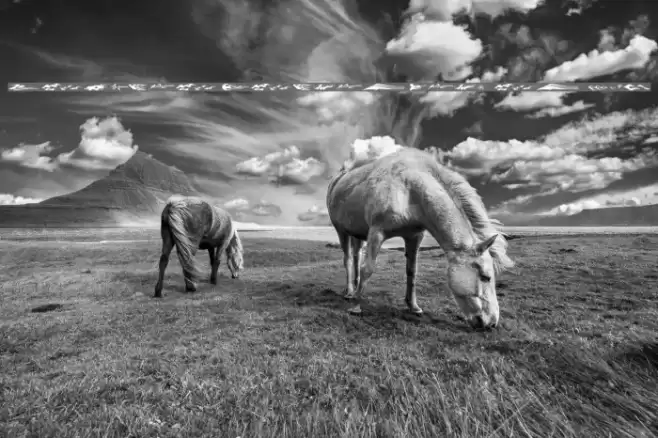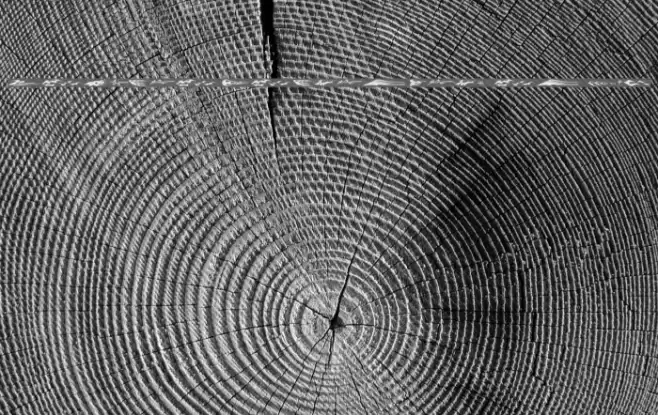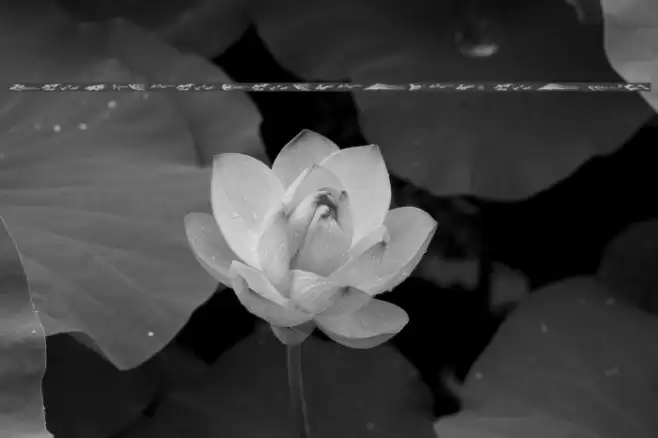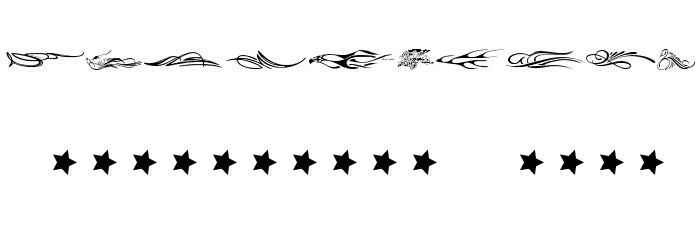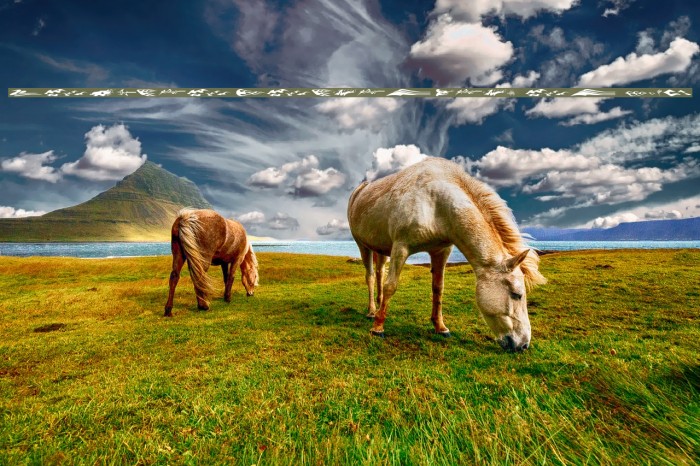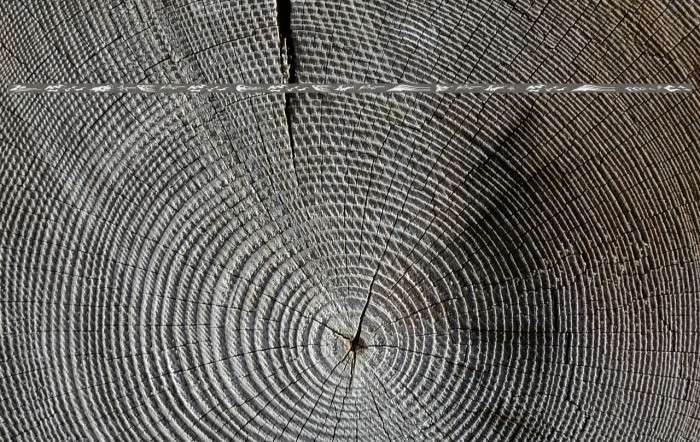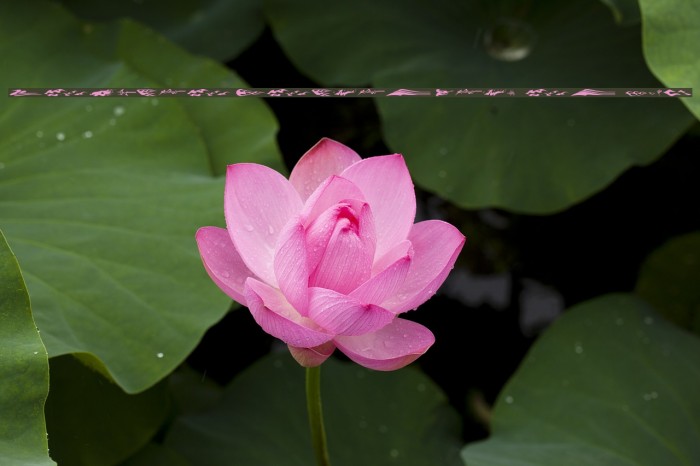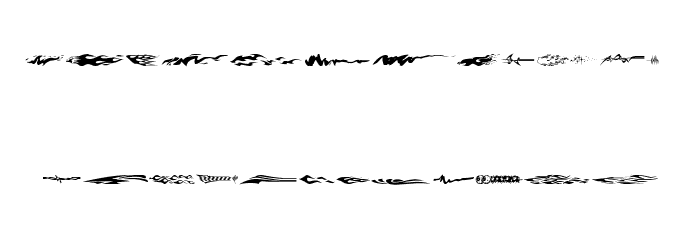
Vehicle Decals Flames Art Font
Vehicle Decals Flames Art Description
A decorative display set featuring stylized flame motifs and star symbols, designed to resemble vehicle decal art. The glyphs are highly illustrative, with dynamic, flowing lines and varying stroke thicknesses, evoking movement and energy.
Decorative flame and star motifs ideal for vehicle-themed designs from Dingbats fonts.
- Proposed Projects: Vehicle decals, custom stickers, poster art, branding for automotive events, themed merchandise.
- Overall Style: Decorative, Automotive, Dynamic
- Use Case: Logos, Decorative elements, Themed graphics